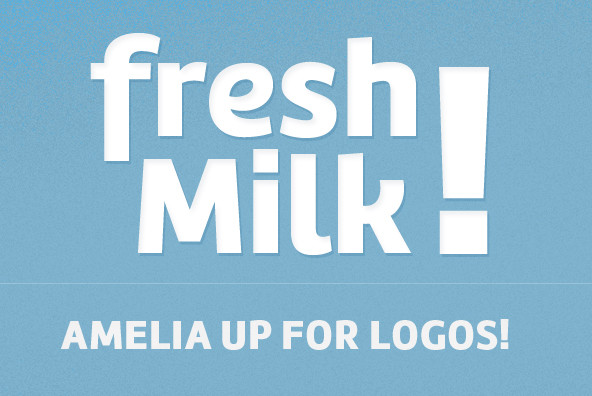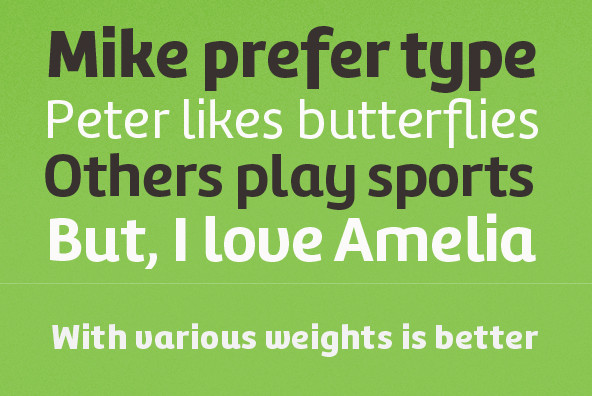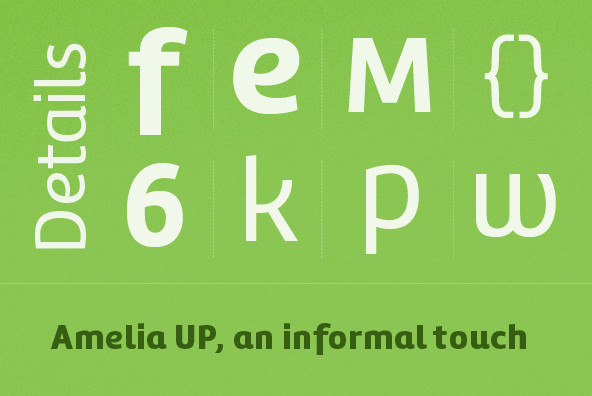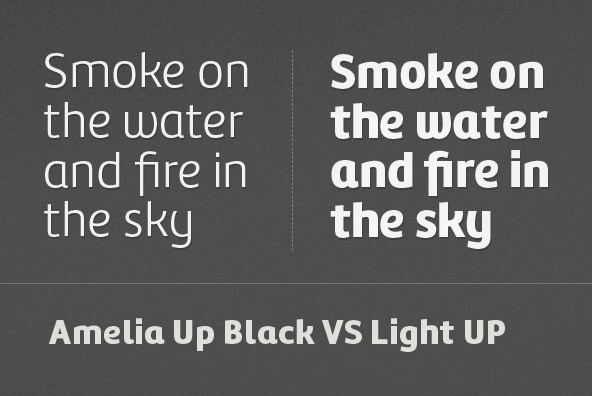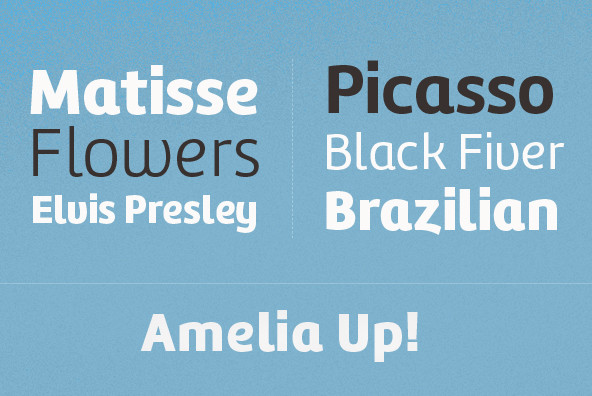
Amelia UP! Font Family
Amelia is a geometric sans, but it keeps the softness of humanistic strokes. The contrast and the differents styles alows Amelia to work as a text or display font.
Also it incorporate a Up version, that incorporate calligraphic features that adds a touch of infromaliy.